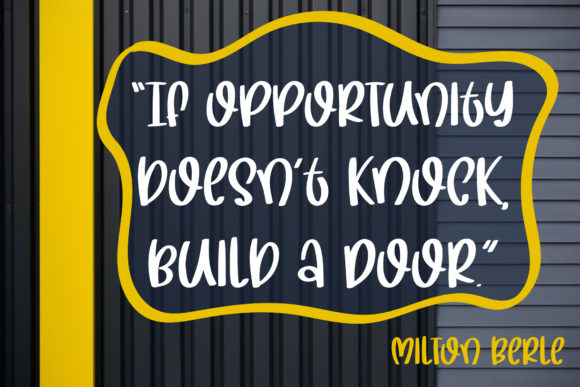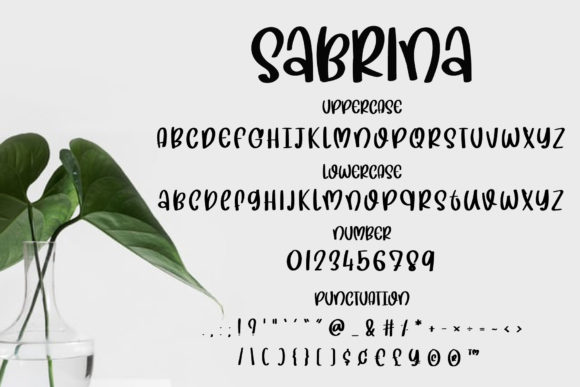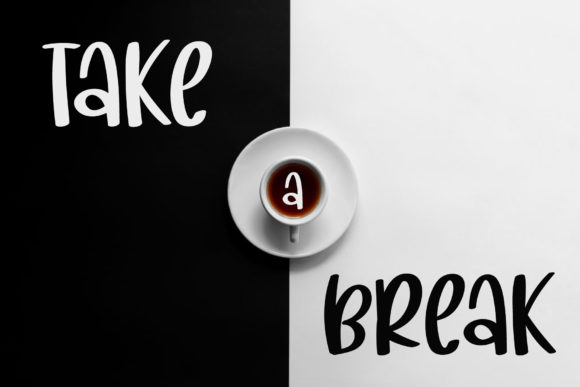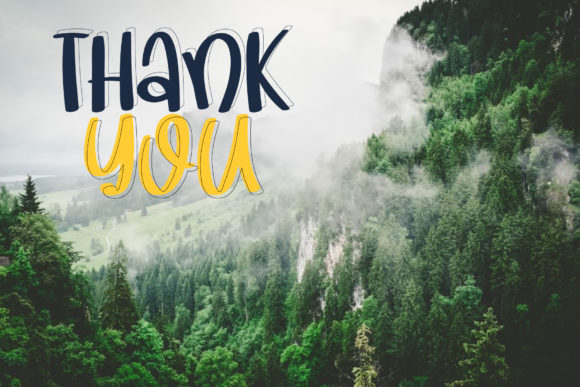
Sabrina Font
About Sabrina Font
Sabrina is a casual and quirky handwritten font. Its well rounded letters make this font incredibly sweet and versatile.